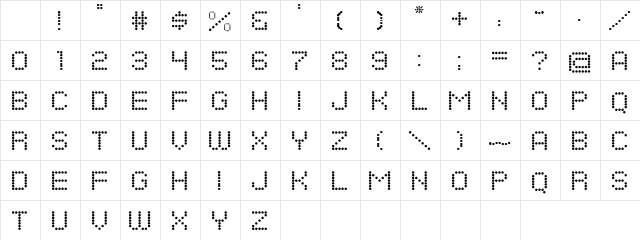
Complete Dots All For Now JL Regular glyph index. Displaying only characters natively supported by Dots All For Now JL Regular font.
Dots All For Now JL is rooted in pixel-grid construction, making it a natural fit for game UI, retro computing aesthetics, and digital nostalgia projects.
Pro Tip: Use Dots All For Now JL at sizes that align with its pixel grid for the sharpest rendering - scaling to non-integer multiples can introduce unwanted blur.